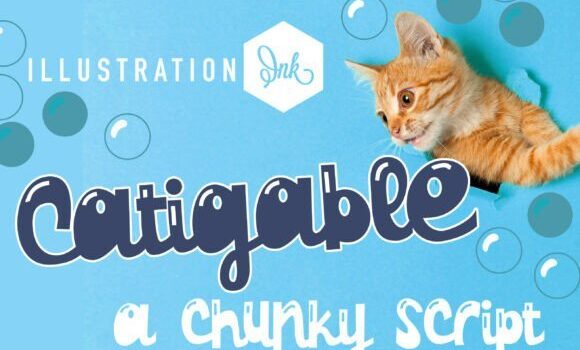
catigable
Catigable Font – Free Download Introduction to Catigable Font This hand-crafted font is a casual script with a very fun mix of thick and thinner lines. 📸 Preview Gallery 6 images 📌 Product Name Catigable Font 👤 Author Illustration Ink